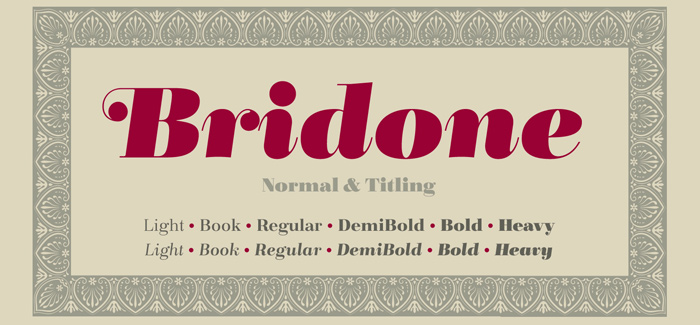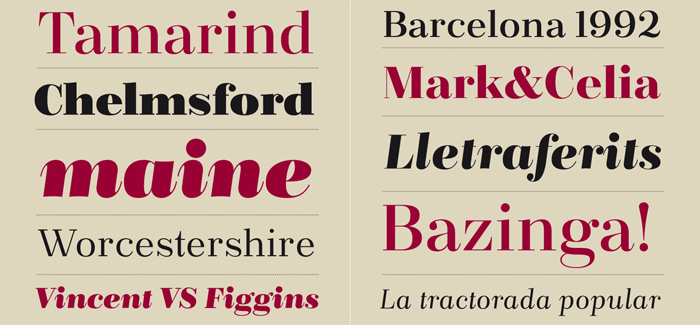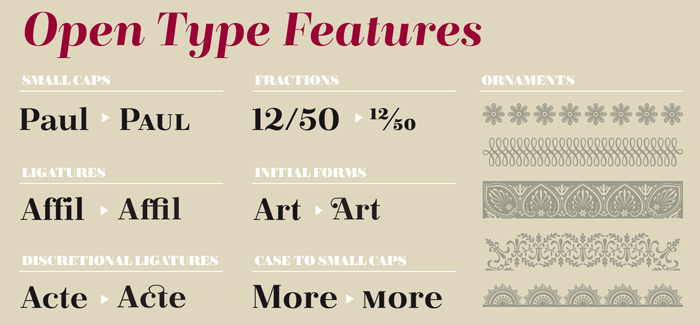
Bridone font
Bridone font, designed by the salsa and fancy-type master Josep Patau Bellart is one innovative and delightful typography delicacy. Chef’s recipe follows:
“1. In a fountain, combine a bit of slightly outdated British slab types from the late Victorian period. If you find Vincent Figgins’s variety, do not discard. You’ll find plenty to choose from in his specimens, some of then with unexpected vitality an enviably condition, despite it’s age. As aging wine, they had improve their quality with time. Cut Didones into thin slices and add.
2. In a blender, whisk the strength of these Slab serif with highly contrasted strokes from Bodoni or Didot’s neoclassical types. Adjust the mix to get a sweeter or spicier taste, but do not forget to emphasize the contrast to avoid the dressing off.
3. On the page, set the wide variety of weights as your menu demands. If you want to feed fill the stomach of the hungriest holders, use Bridone Titling as main course. If you are serving a traditional menu, starter, main and dessert, then simmer a combination of weights and sizes according to your space. It will not disappoint, much less your guests .
4. Spread thoroughly the page, serve and enjoy.
If you like natural, switch to Bridone, your pages will thank you.”